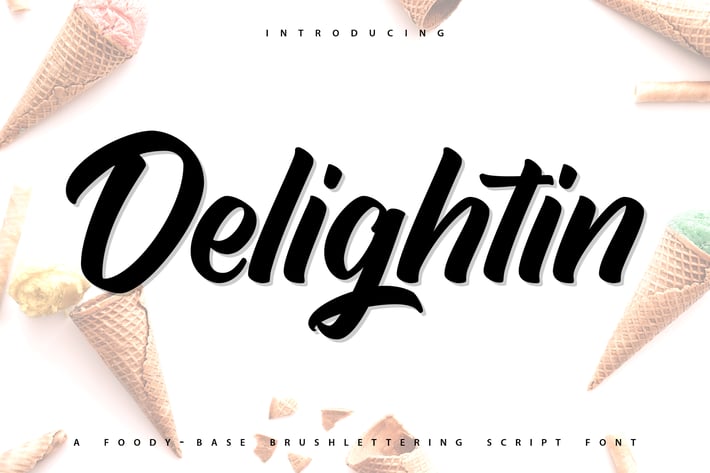
Delightin | Foody Brush Lettering Script Font
Delightin | Foody Brush Lettering Script Font with a calligraphy style, So beautiful on invitation like greeting cards, branding materials, business cards, quotes, posters, and more!